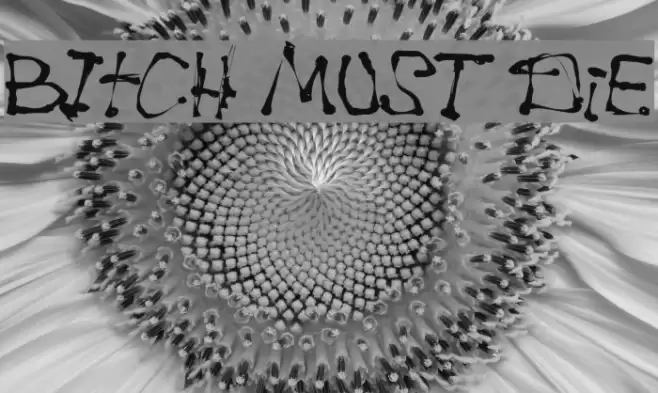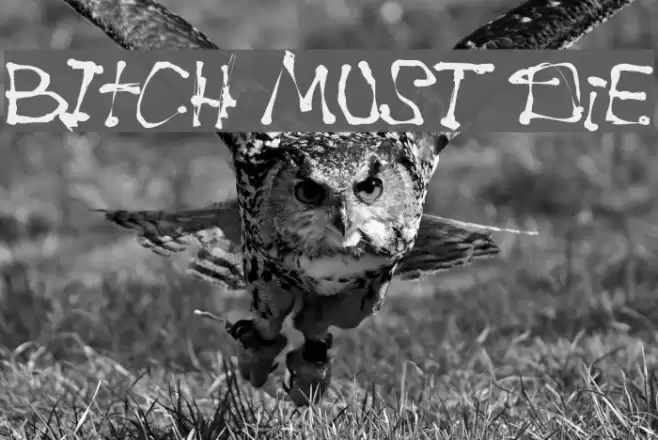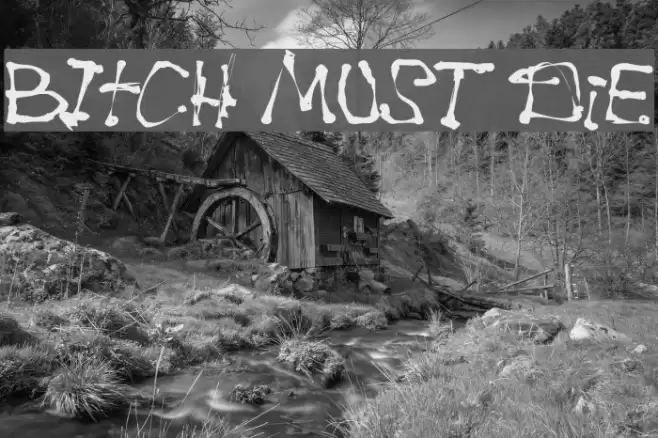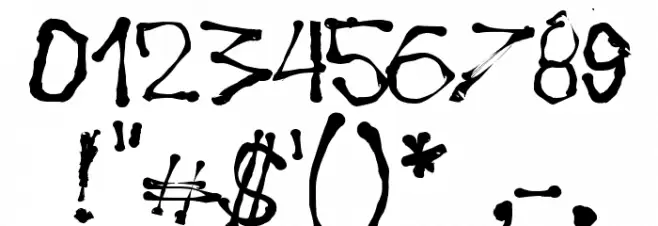
BItCH MUST DiE Font
BItCH MUST DiE Description
This font exhibits a raw, expressive style reminiscent of hand-drawn graffiti or ink splatters. The characters are irregular and dynamic, with strokes that vary in thickness, creating a sense of movement and energy. The uppercase and lowercase letters maintain a consistent aesthetic, with jagged edges and a slightly chaotic arrangement. Numbers and special characters follow the same design principles, adding to the overall edgy and artistic feel. This font is ideal for projects that require a bold, unconventional look, such as street art-inspired designs, album covers, or edgy branding materials.
A dynamic, graffiti-inspired font with irregular, expressive strokes from Uncategorized fonts.
- Proposed Projects: Street art designs, album covers, edgy branding, artistic posters.
- Character Spacing: Tight
- Use Case: Logos, Headlines, Artistic projects